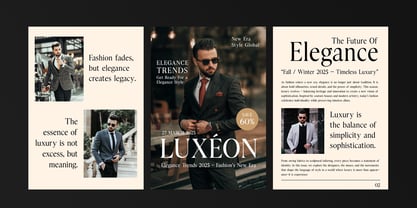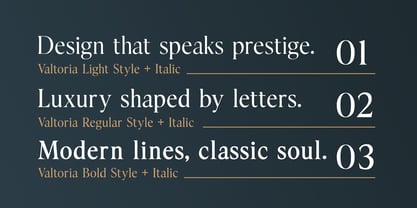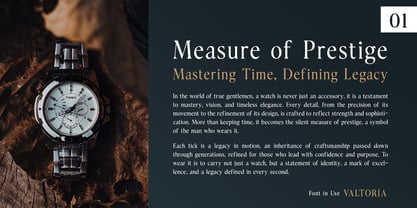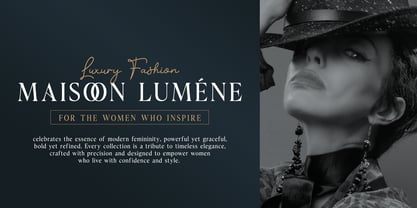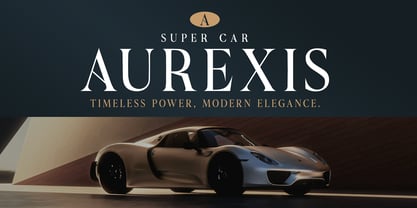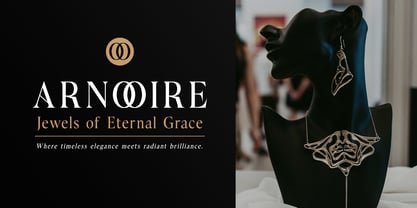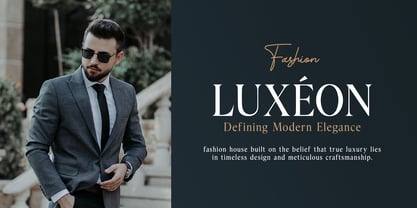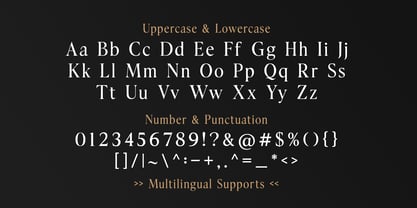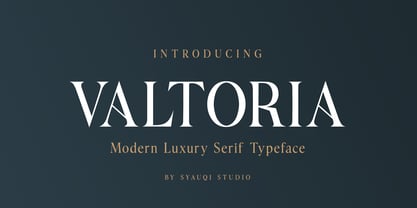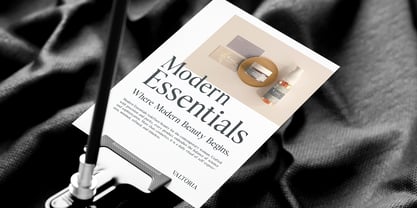
Valtoria
by Syauqi Studio
The Valtoria Font Family was designed by Muhammad Asroful Umam and published by Syauqi Studio. Valtoria contains 5 styles and family package options.
Valtoria – Modern Luxury Serif Typeface
Valtoria is a modern serif typeface that blends timeless elegance with contemporary sophistication. Designed with refined details and balanced proportions, Valtoria brings a sense of luxury, class, and exclusivity to any project.
Its strong yet graceful letterforms make it perfect for branding, editorial design, logos, packaging, invitations, fashion campaigns, luxury hotels, cosmetics, and digital media. Whether you want to create a high-end visual identity or add a classic touch to modern layouts, Valtoria delivers versatility and style.
This typeface includes uppercase, lowercase, numerals, punctuation, and stylish alternates, all crafted with precision for clean, professional typography.
If you are looking for a modern luxury serif font that combines classic beauty with contemporary design, Valtoria is the perfect choice to elevate your work.
Designers: Muhammad Asroful Umam
Publisher: Syauqi Studio
Foundry: Syauqi Studio